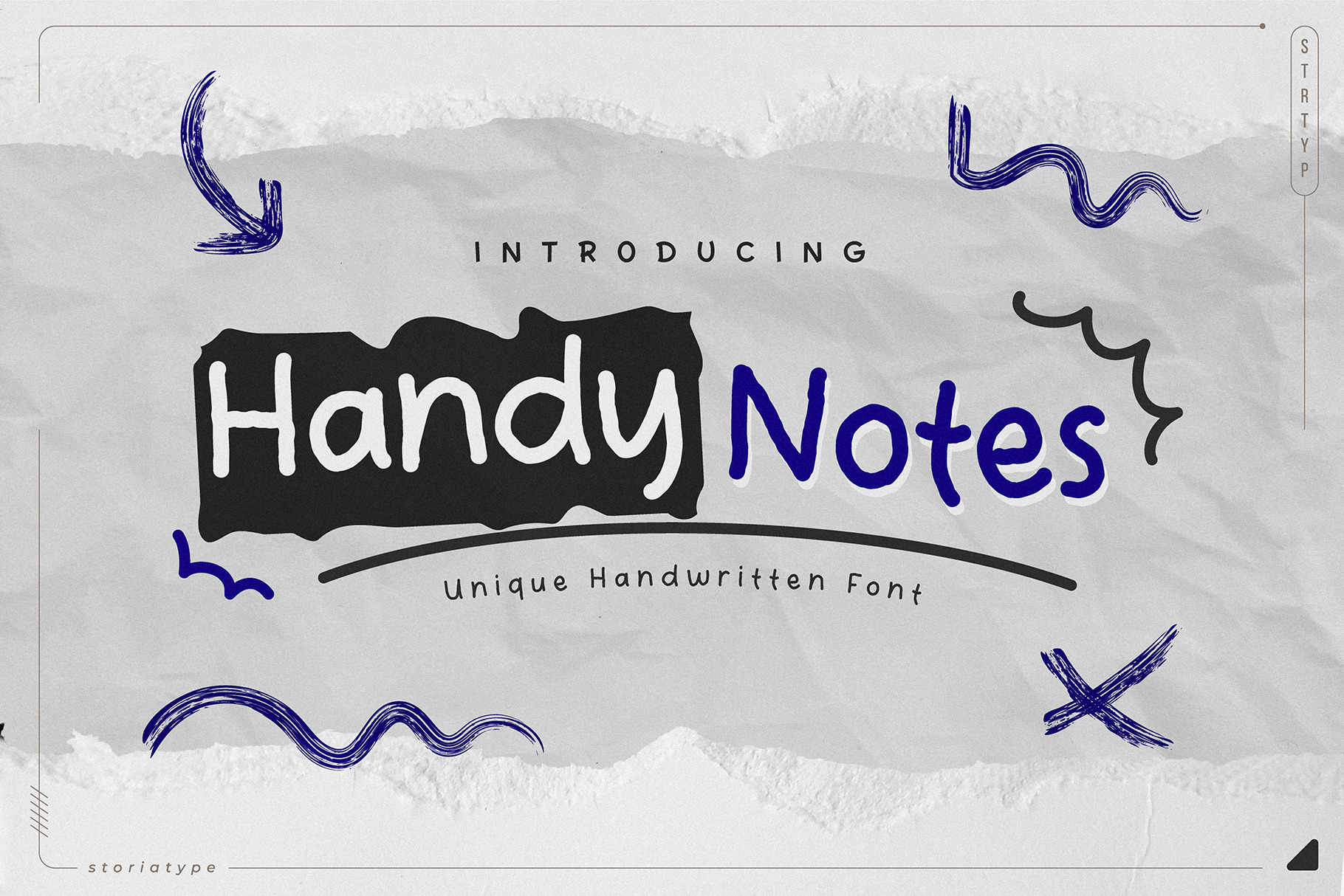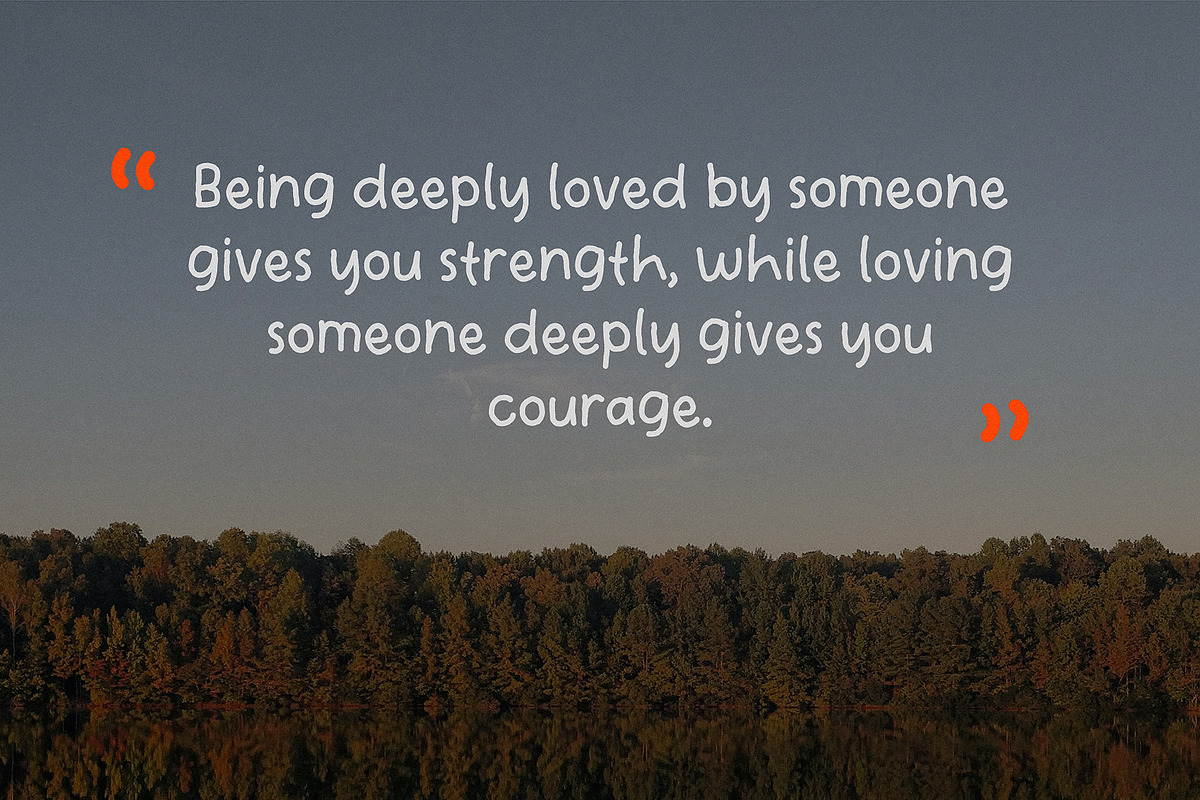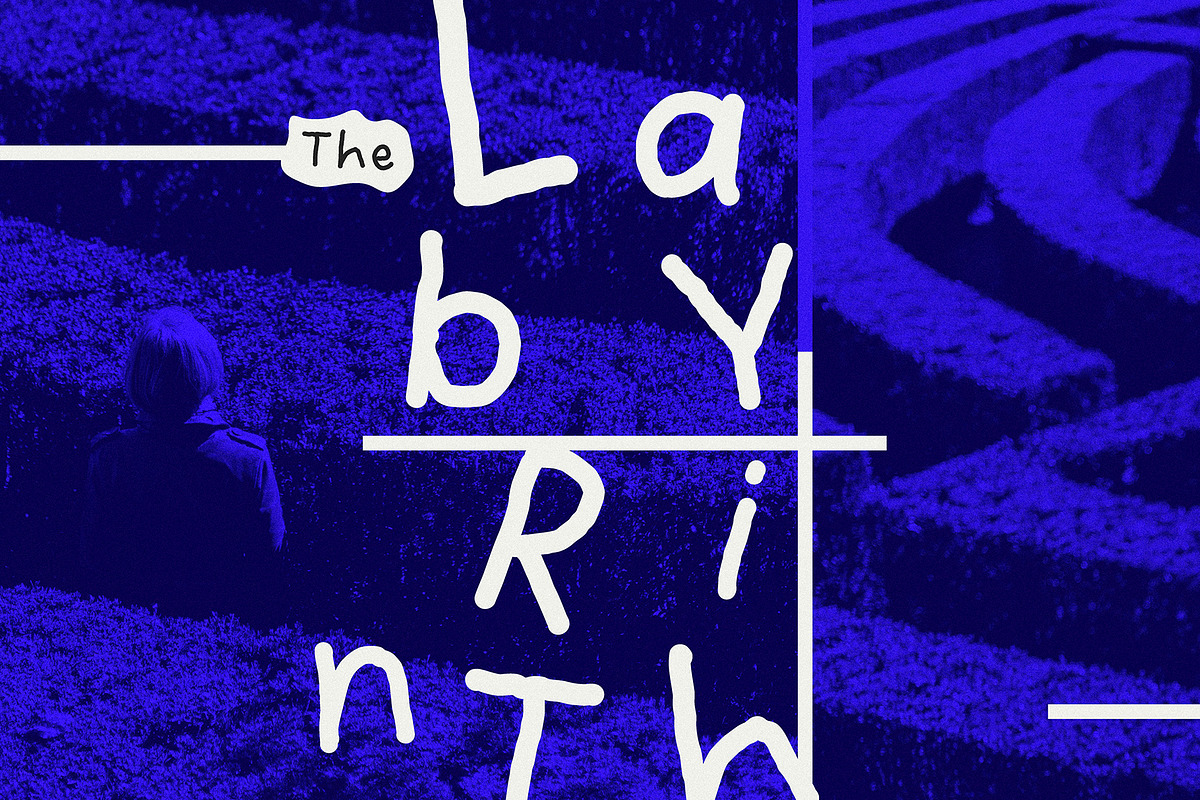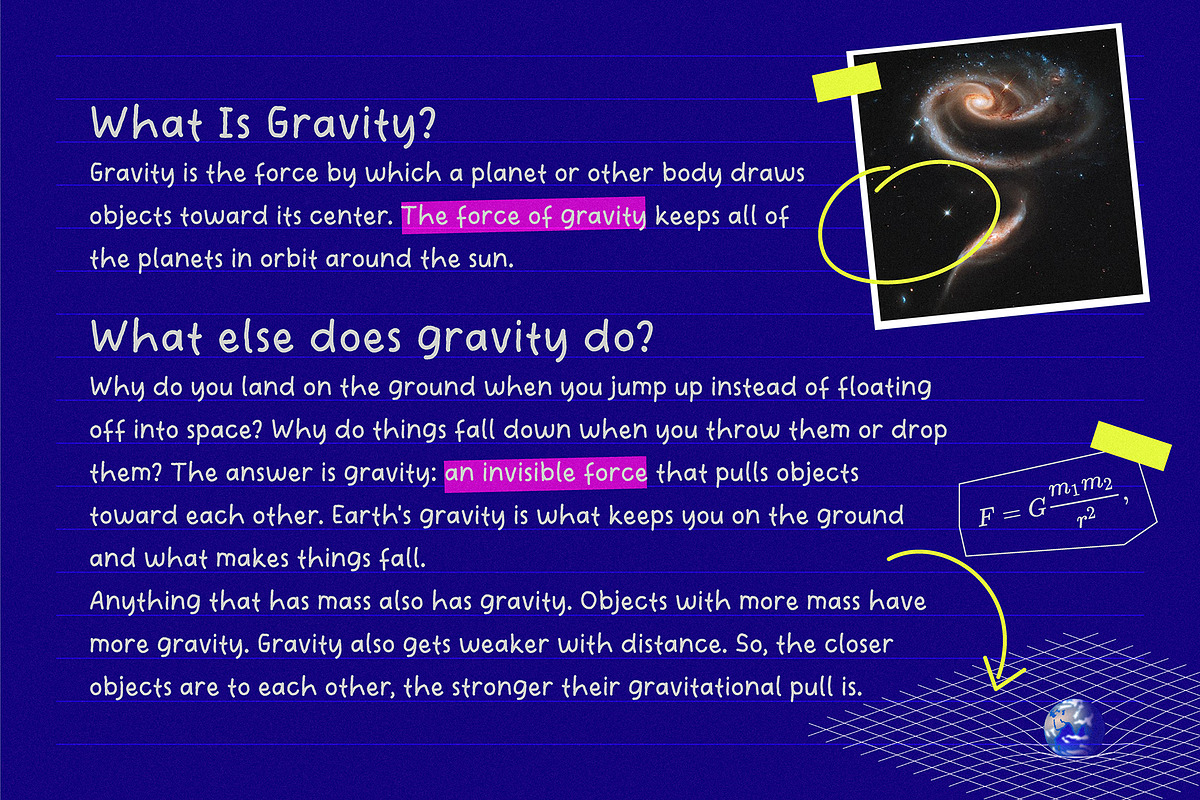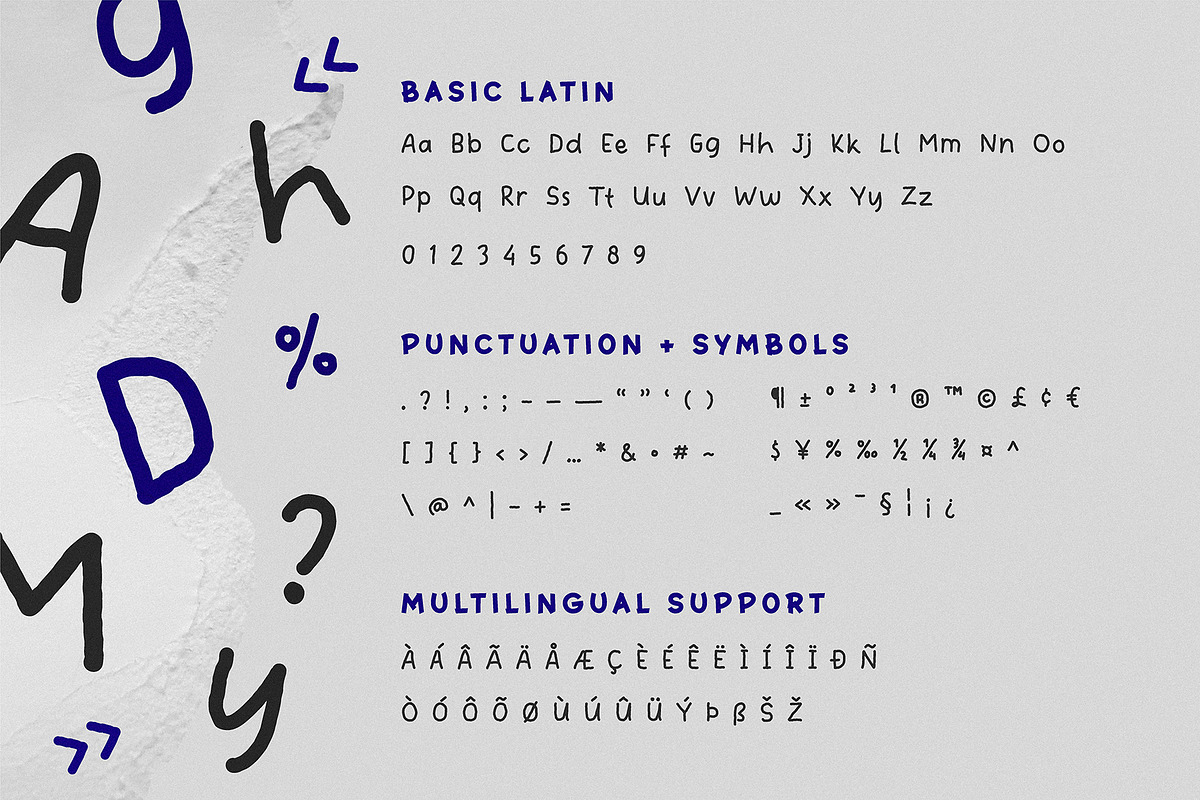
Handy Notes Handwritten Font
Allow me to introduce you to our delightful font: “Handy Notes”. 🎨✍️
Crafted by Hand: Each letter in “Handy Notes” is like a tiny work of art. Imagine an artisan meticulously shaping every curve and line, infusing your words with personality.
Pocket-Sized Creativity: “Handy Notes” fits snugly into any design project. Whether it’s a logo, a heartfelt message, or a whimsical poster, this font adds that touch of authenticity.
Friendly Whispers: When your words appear in “Handy Notes,” they’re like friendly whispers to the reader. Approachable, warm, and inviting.